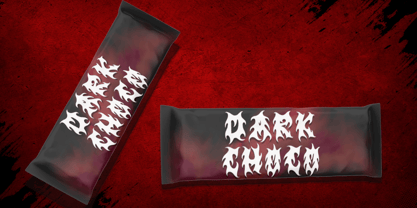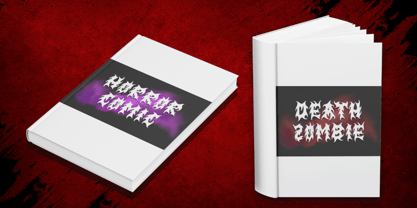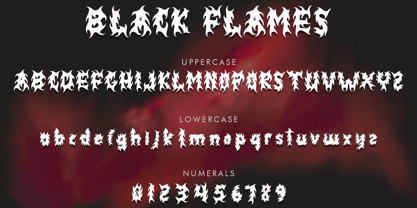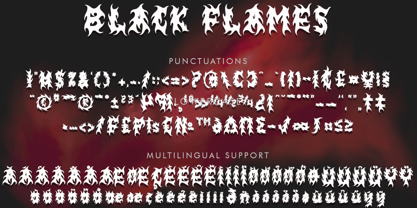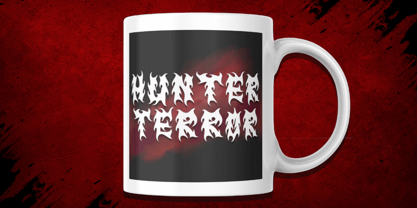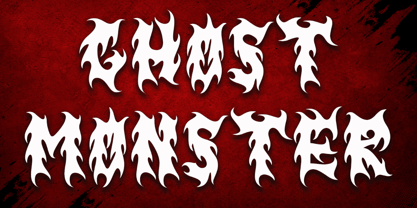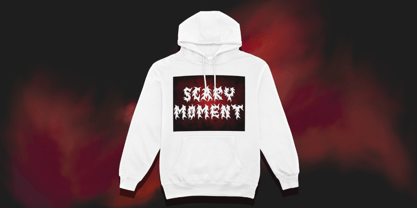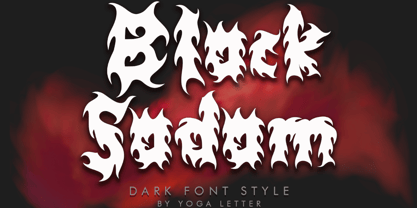
Black Sadam
by Yoga Letter
The Black Sadam Font Family was designed by Isroni Yoga Prasetya and published by Yoga Letter. Black Sadam contains 1 styles. More about this family
"Black Sadam" is a unique and elegant font with a fiery flame shape. It features uppercase and lowercase letters, numbers, punctuation, and multilingual support. Perfect for Halloween, horror movie titles, horror books, comics, banners, posters, branding, stickers, logos, business branding, Easter, mystery stories, logos, prints, fall, autumn, winter, summer, spring, holidays, and more.